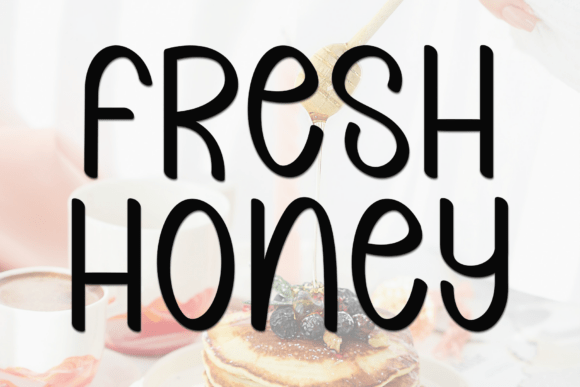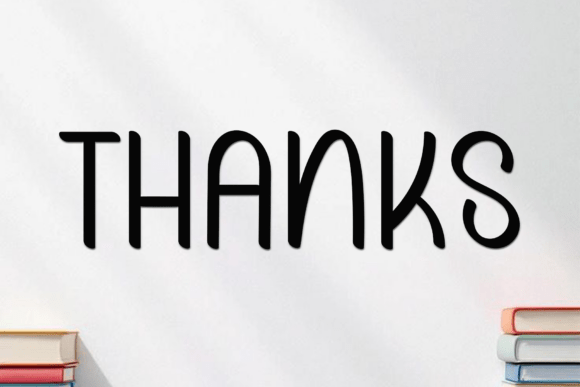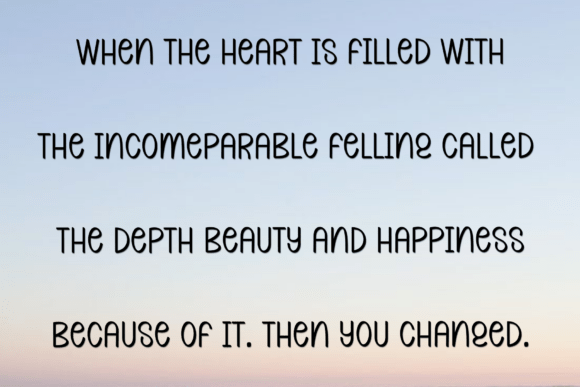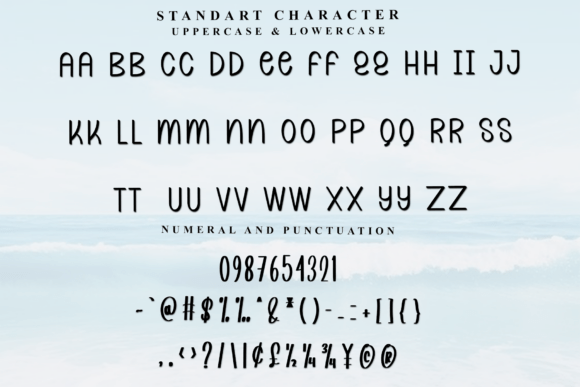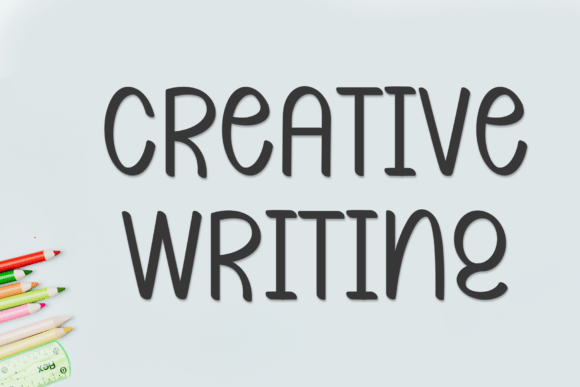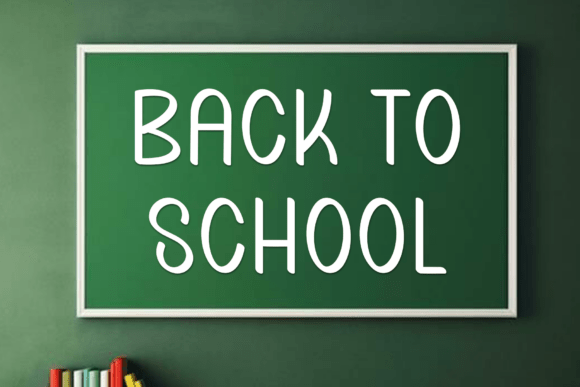
Introducing Garage Font: Elevate Your Designs with a Stylish and Bold Handwritten Touch
Are you tired of using the same old fonts in your designs? Do you want to add a touch of personality and style to your headlines and logotype projects? Look no further than Garage Font, a gorgeous and bold handwritten font that’s sure to take your designs to the next level. In this article, we’ll dive into the features and benefits of Garage Font, and explore how it can help you create stunning designs that stand out from the crowd.
A Strong, Confident, and Dynamic Font
Garage Font is a bold and confident handwritten font that’s perfect for designers and crafters who want to add a touch of style and sophistication to their work. With its strong and dynamic characters, this font reads as powerful and attention-grabbing, making it ideal for headlines, logotypes, and other design projects where you want to make a statement.
Whether you’re working on a branding project, a website design, or a marketing campaign, Garage Font is the perfect choice for adding a touch of personality and flair to your designs. Its unique and stylish characters will help you stand out from the crowd and leave a lasting impression on your audience.
A Nostalgic Character that Adds Depth to Your Designs
One of the standout features of Garage Font is its nostalgic character. With its handwritten feel and bold lines, this font has a retro vibe that’s sure to evoke memories of classic design and typography. Whether you’re a fan of vintage design or just want to add a touch of warmth and personality to your work, Garage Font is the perfect choice.
The nostalgic character of Garage Font also makes it perfect for designers and crafters who want to create designs that feel authentic and genuine. Whether you’re working on a project that requires a retro or vintage feel, or simply want to add a touch of character to your designs, Garage Font is the perfect choice.
Features and Benefits of Garage Font
So what makes Garage Font so special? Here are just a few of its key features and benefits:
- Bold and confident characters: Garage Font features bold and confident characters that are perfect for headlines, logotypes, and other design projects where you want to make a statement.
- Handwritten feel: With its handwritten feel and bold lines, Garage Font has a unique and stylish character that’s sure to add a touch of personality to your designs.
- Nostalgic character: Garage Font has a retro vibe that’s sure to evoke memories of classic design and typography, making it perfect for designers and crafters who want to create designs that feel authentic and genuine.
- Easy to read: Despite its bold and dynamic characters, Garage Font is easy to read and works well in a variety of design contexts.
- Versatile: Garage Font is a versatile font that works well in a variety of design contexts, from branding and logotypes to website design and marketing campaigns.
How to Use Garage Font in Your Designs
So how can you use Garage Font in your designs? Here are a few ideas to get you started:
- Headlines and titles: Use Garage Font to create bold and attention-grabbing headlines and titles that are sure to stand out.
- Logotypes and branding: Garage Font is perfect for logotypes and branding projects where you want to create a strong and memorable identity.
- Website design: Use Garage Font to add a touch of personality and style to your website design, whether you’re working on a homepage, about page, or blog post.
- Marketing campaigns: Garage Font is perfect for marketing campaigns where you want to create bold and attention-grabbing designs that stand out from the crowd.
In conclusion, Garage Font is a gorgeous and bold handwritten font that’s perfect for designers and crafters who want to add a touch of style and personality to their work. With its strong and dynamic characters, nostalgic character, and versatility, Garage Font is the perfect choice for a wide range of design projects. Whether you’re working on a branding project, website design, or marketing campaign, Garage Font is sure to help you create stunning designs that stand out from the crowd.